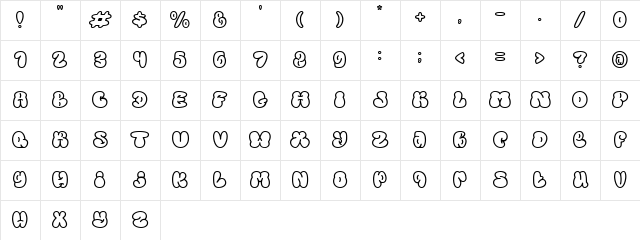
Napblow DEMO Regular Free Font
Napblow DEMO Regular
Foundry: Suandana Ipandemade
Designer: Suandana Ipandemade
Design Context for Napblow DEMO
Napblow DEMO is a composed and adaptable typeface that performs quietly and consistently across a wide range of design contexts.
Who designed the Napblow DEMO Regular font?